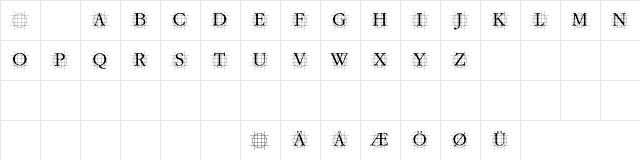
GrafCirculum Regular
Design Context for GrafCirculum Typeface
GrafCirculum offers clean, dependable letterforms without strong stylistic allegiance, making it a practical choice for designers who need flexibility.